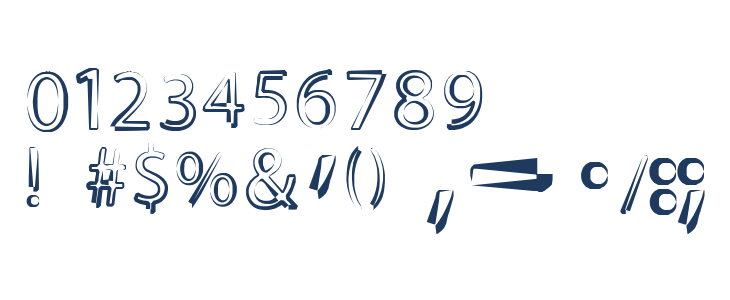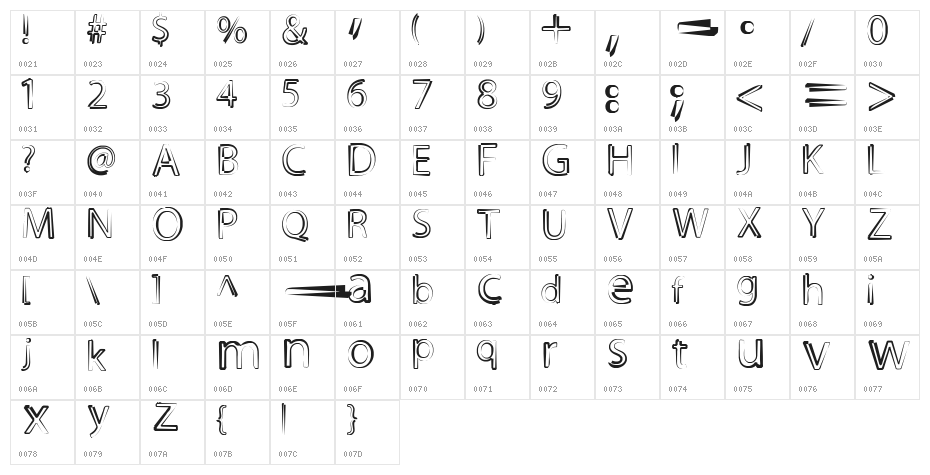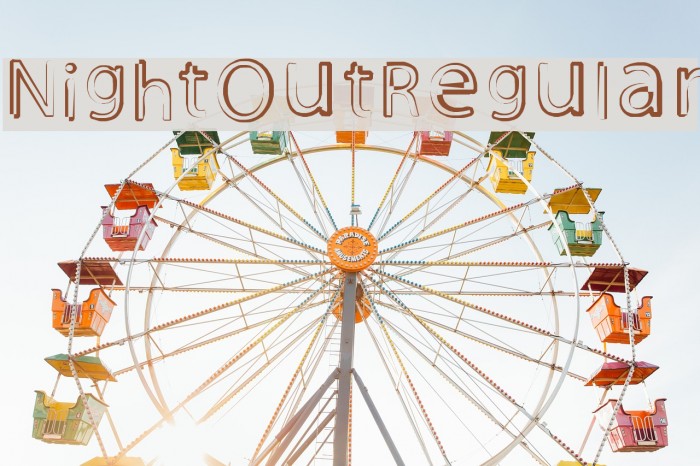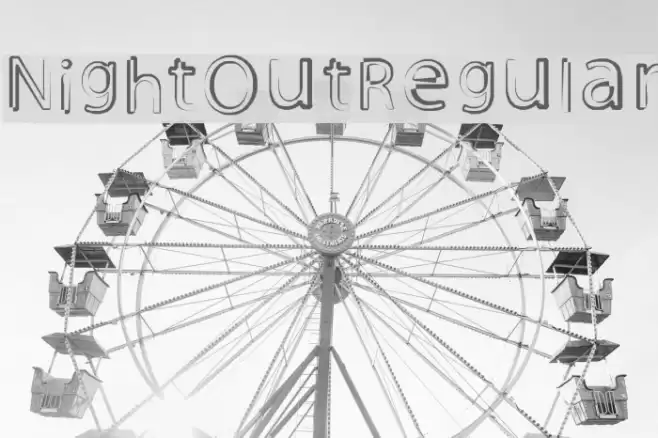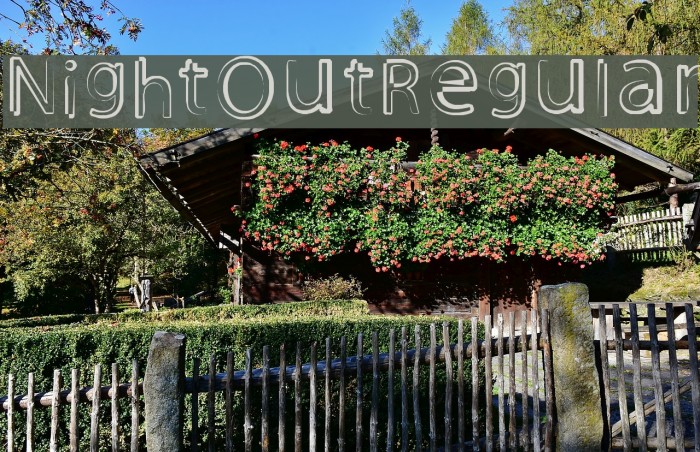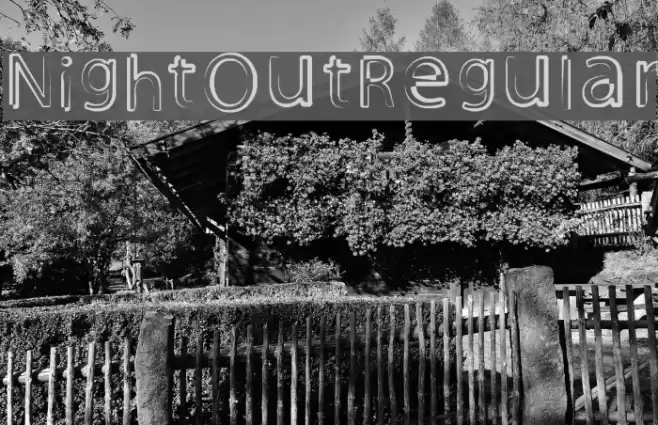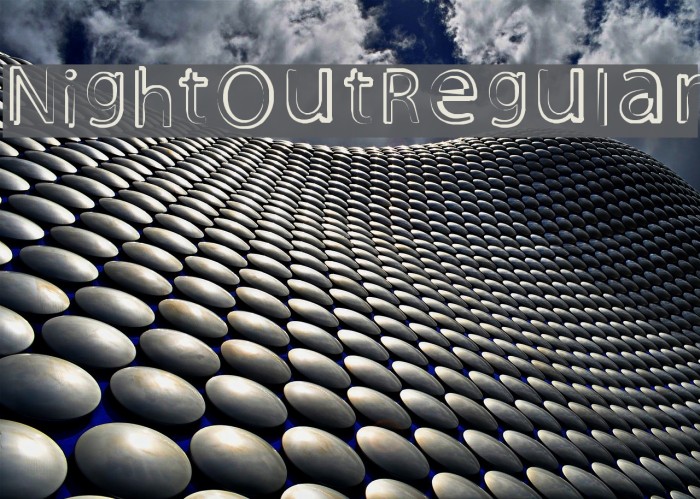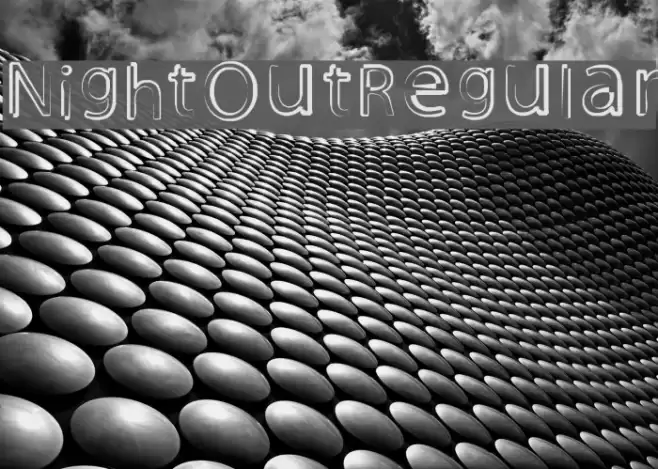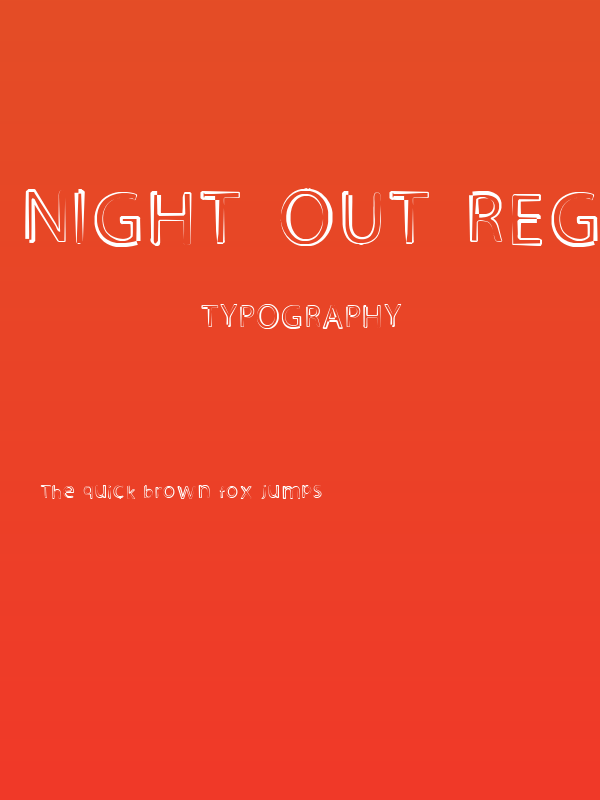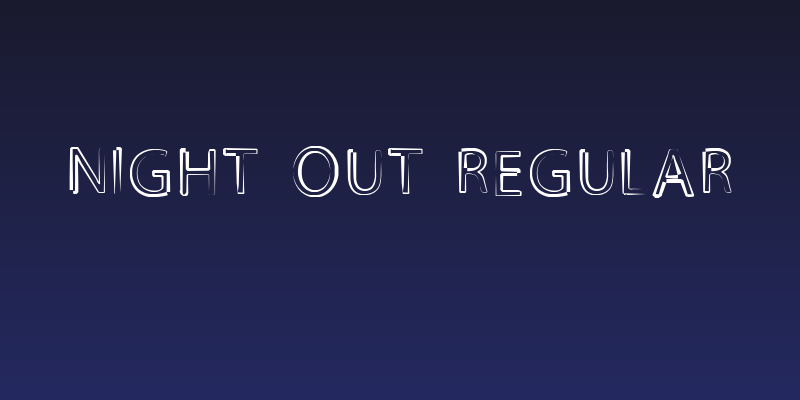
Night Out Regular Font
Night Out Regular Description
This font features a modern and stylish design with a unique outline effect that gives it a three-dimensional appearance. The uppercase and lowercase letters maintain a consistent structure, with clean lines and a balanced form. The numerals are distinct and easy to read, while the special characters add a playful touch to the overall design. The font's outline style creates a sense of depth, making it stand out in various applications. Its contemporary look is suitable for projects that require a bold and eye-catching typeface.
| Proposed Projects | Ideal for branding, posters, headlines, and digital media where a striking visual impact is desired. |